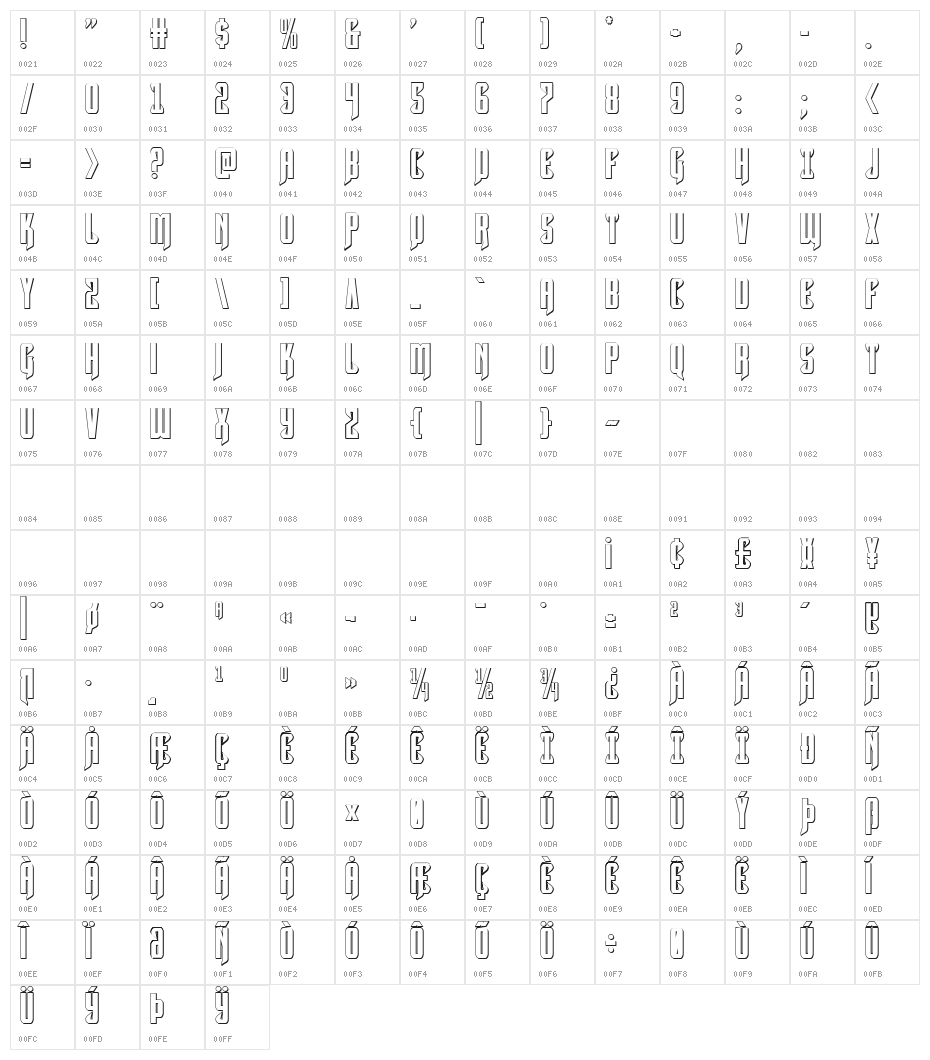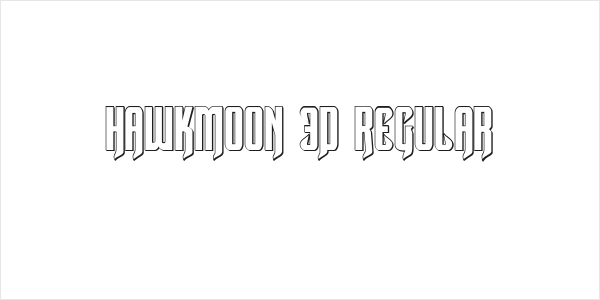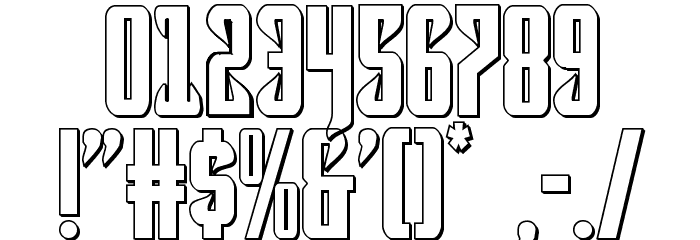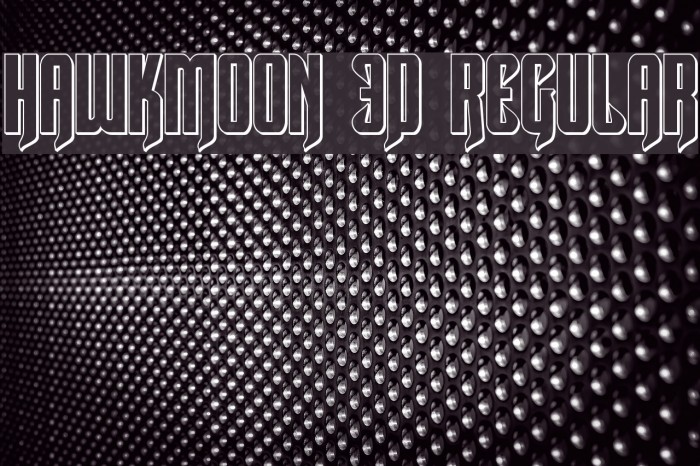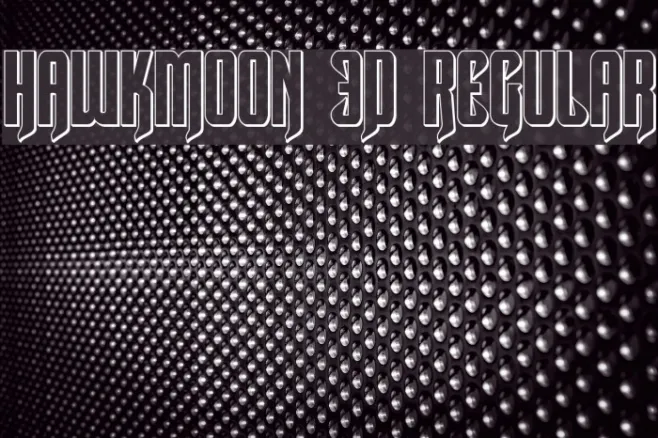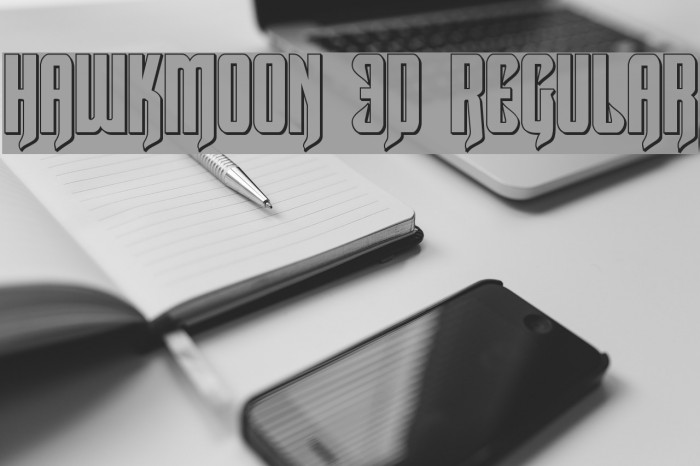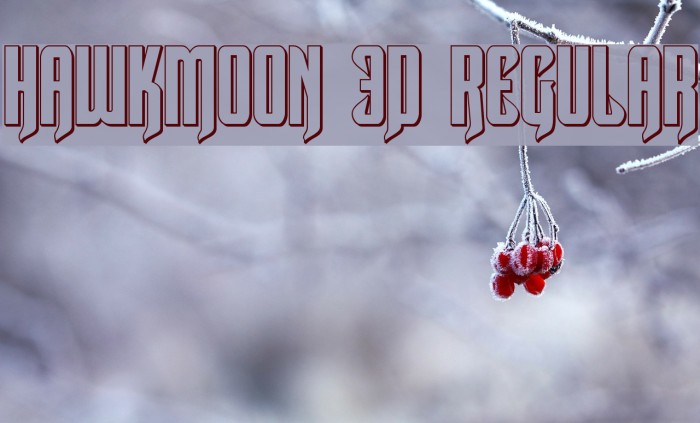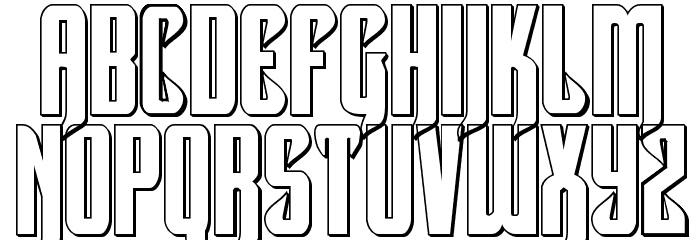
Hawkmoon 3D Regular Font
Hawkmoon 3D Regular Description
This font features a bold, three-dimensional style with a strong geometric influence. The characters are outlined with a shadow effect, giving them a distinct 3D appearance. The uppercase and lowercase letters maintain a consistent height, contributing to a uniform look. The numbers and special characters are designed to match the boldness and style of the alphabet, ensuring a cohesive visual presentation. The font's angular lines and sharp edges create a modern and dynamic feel, making it suitable for attention-grabbing designs.